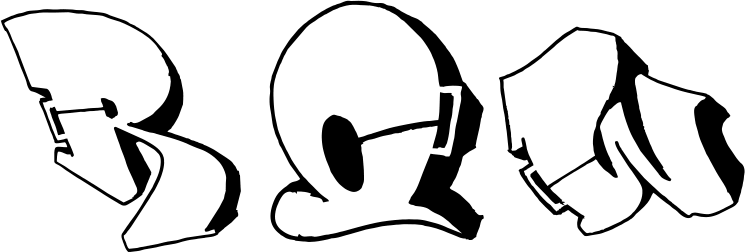
Row Font
Row is one of the special and fancy fonts that simply impresses the audience. Row is a graffiti font and is very special and creative in terms of design. By using this font in designing logos and web pages, you can convey a sense of excitement and intimacy to the audience. The Row font doesn’t contain lowercase letters, numbers, and punctuation. This form doesn’t have good readability.